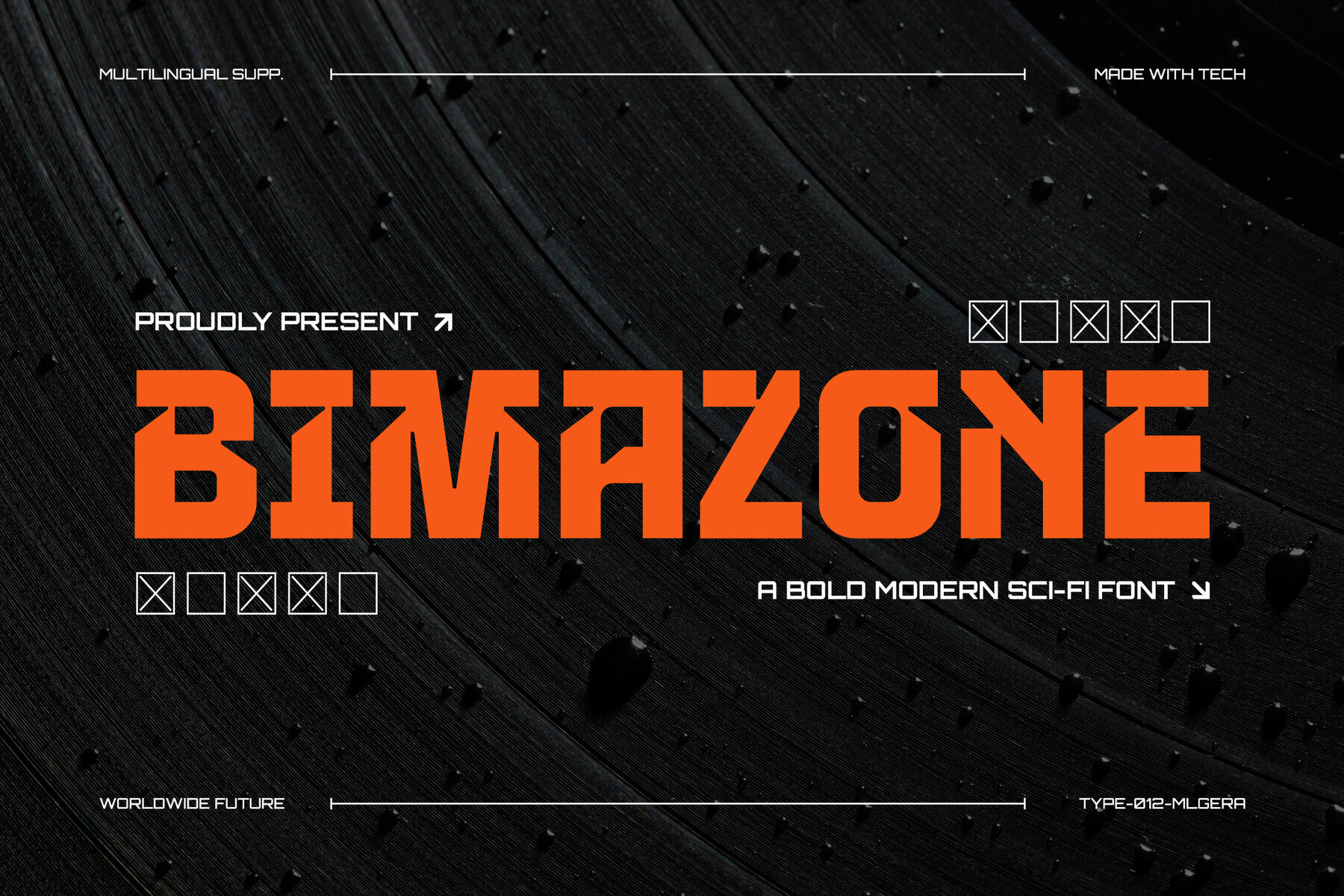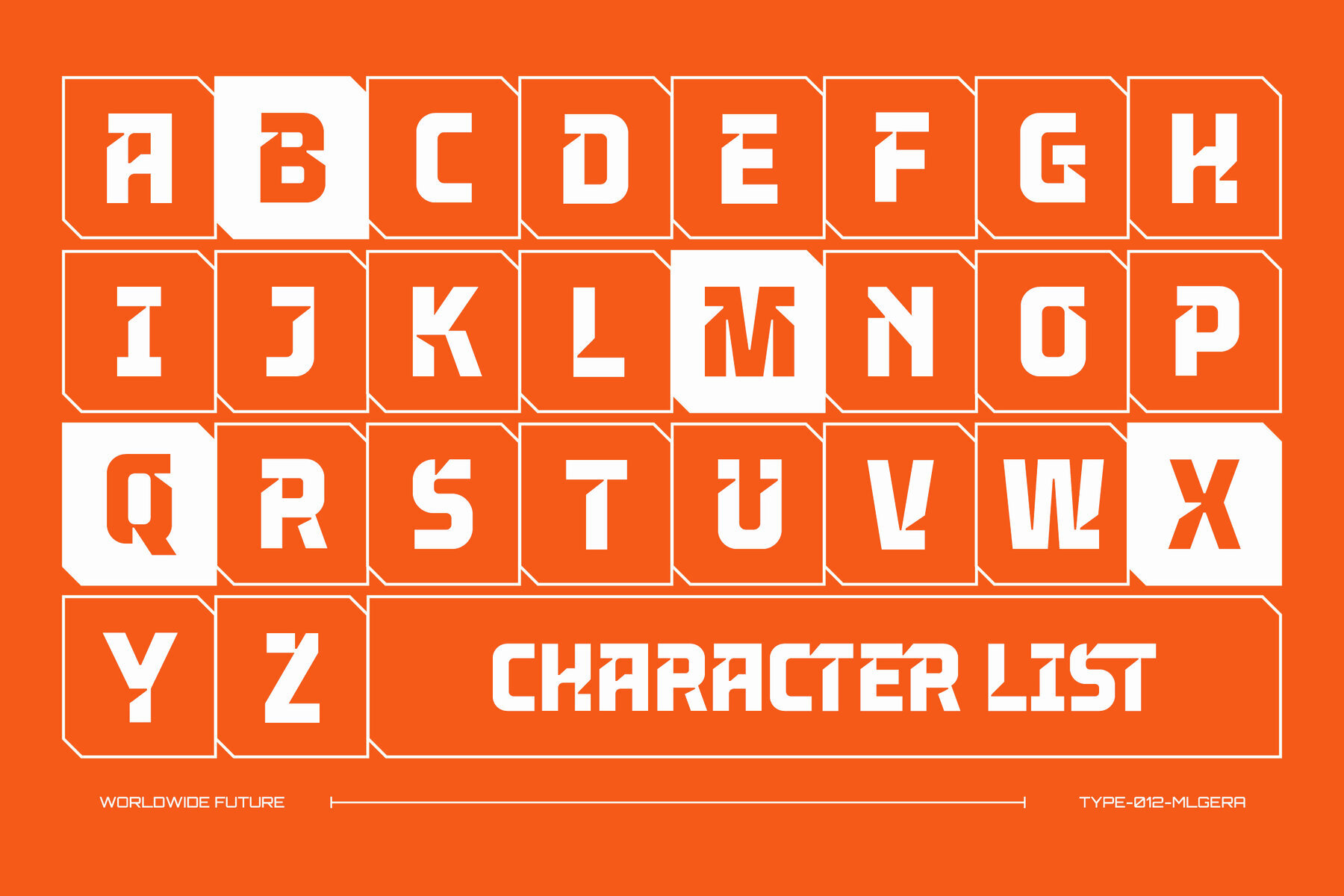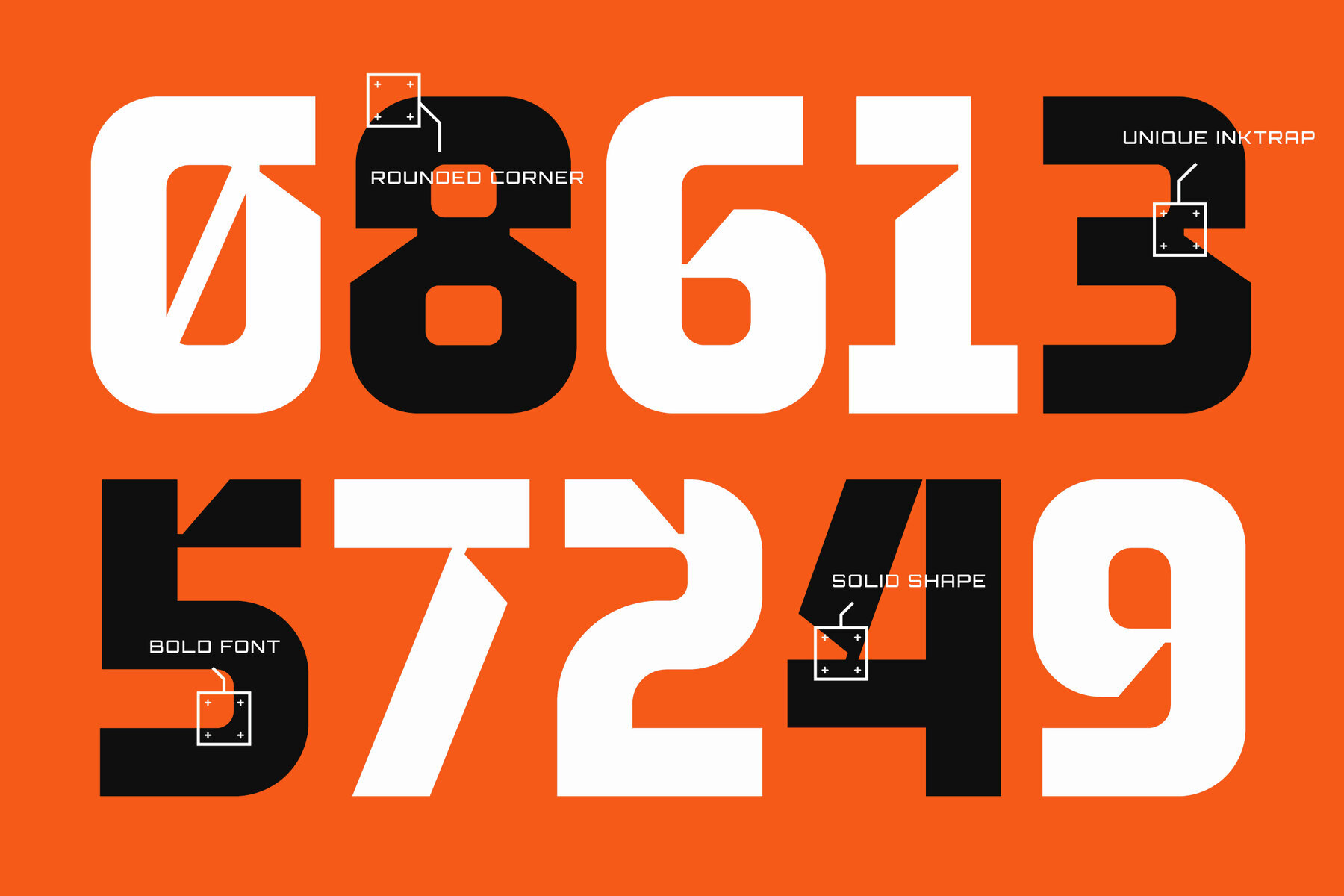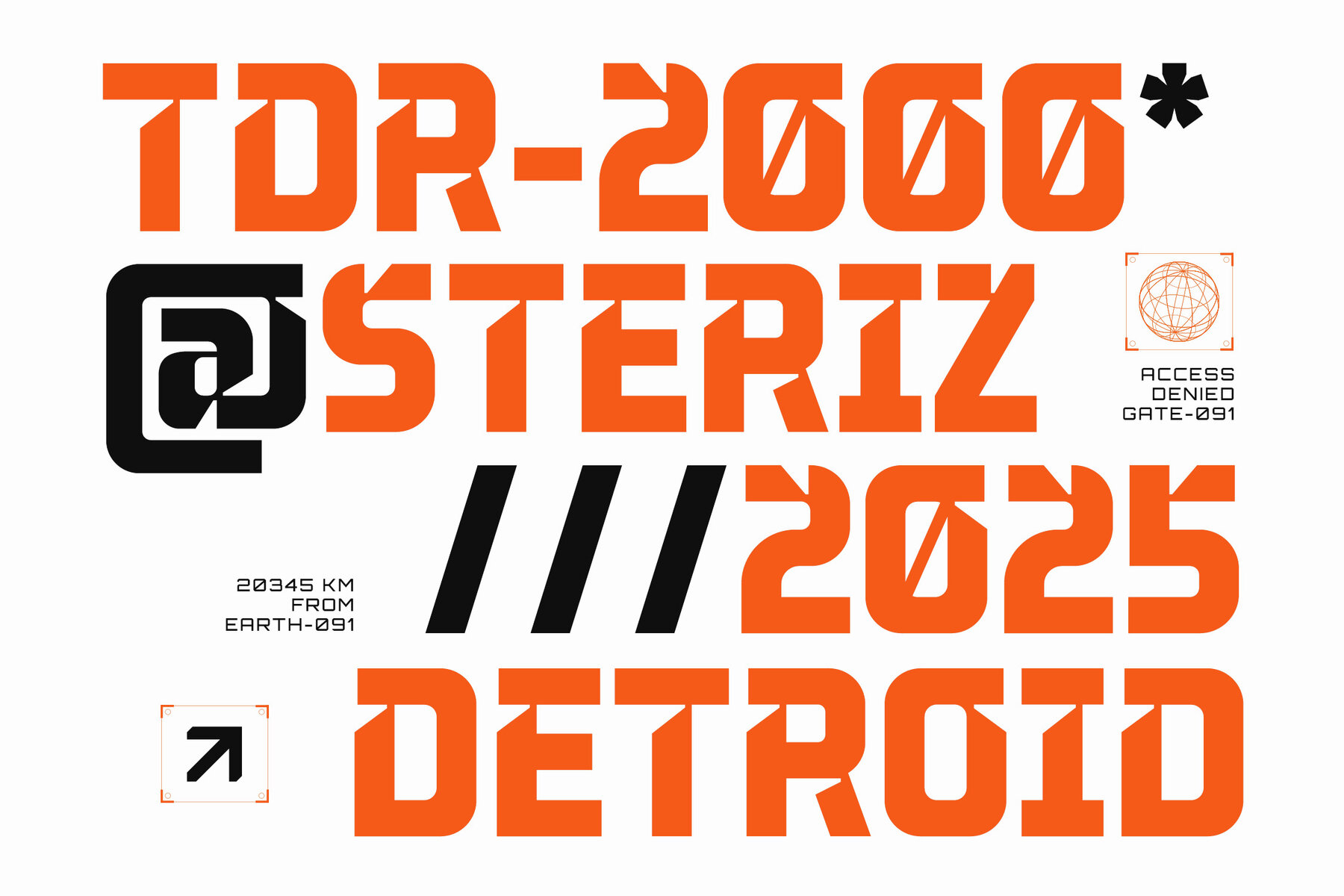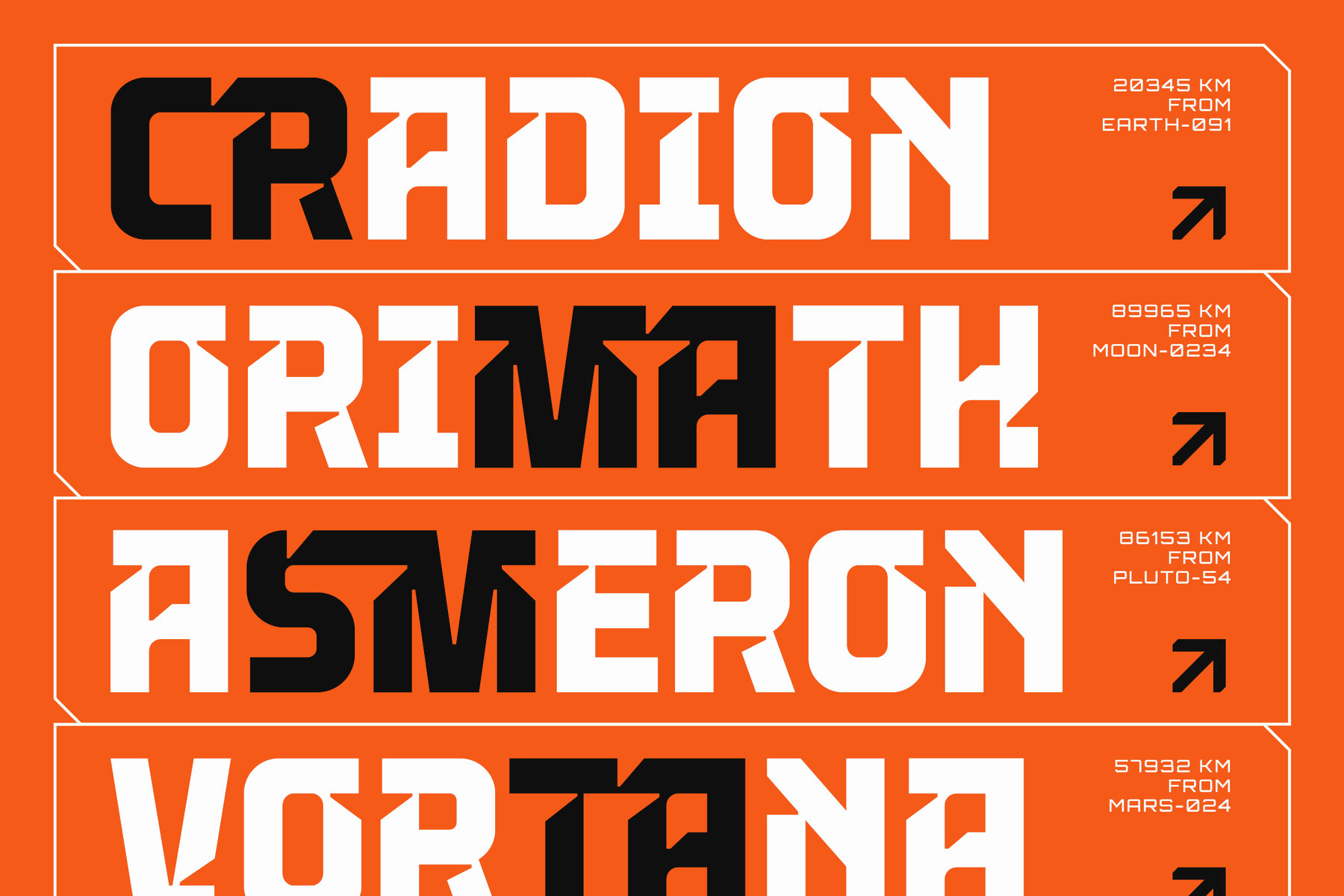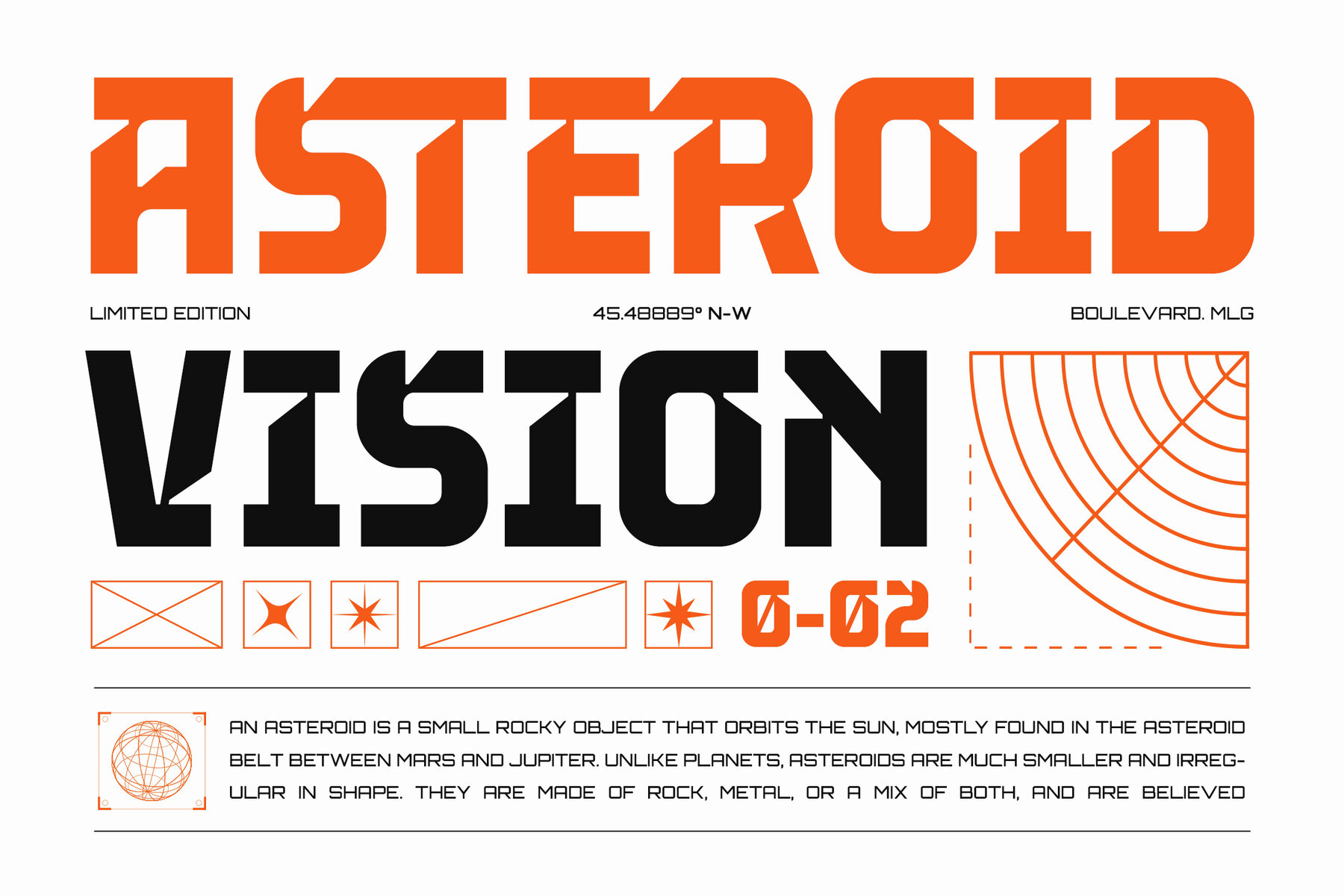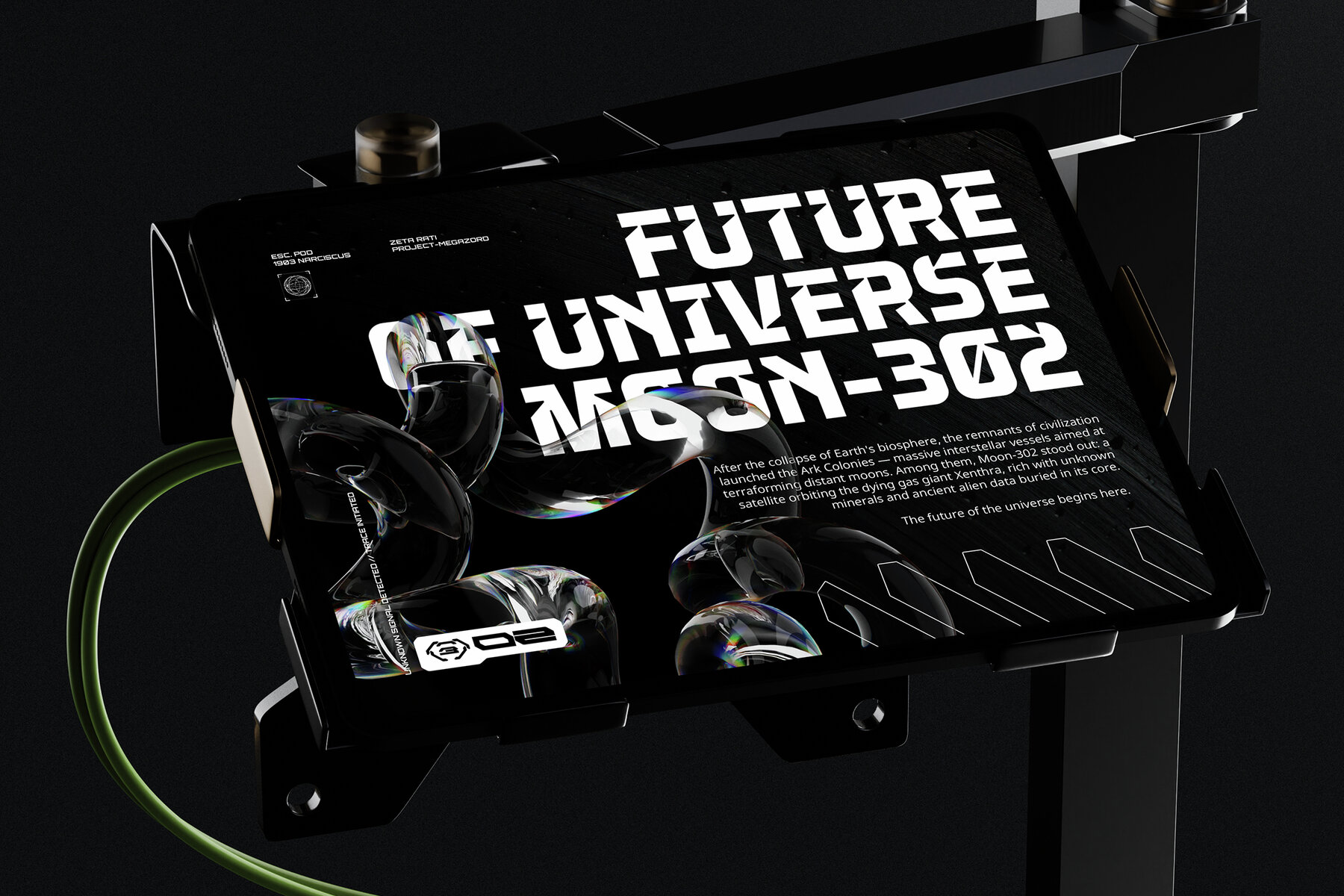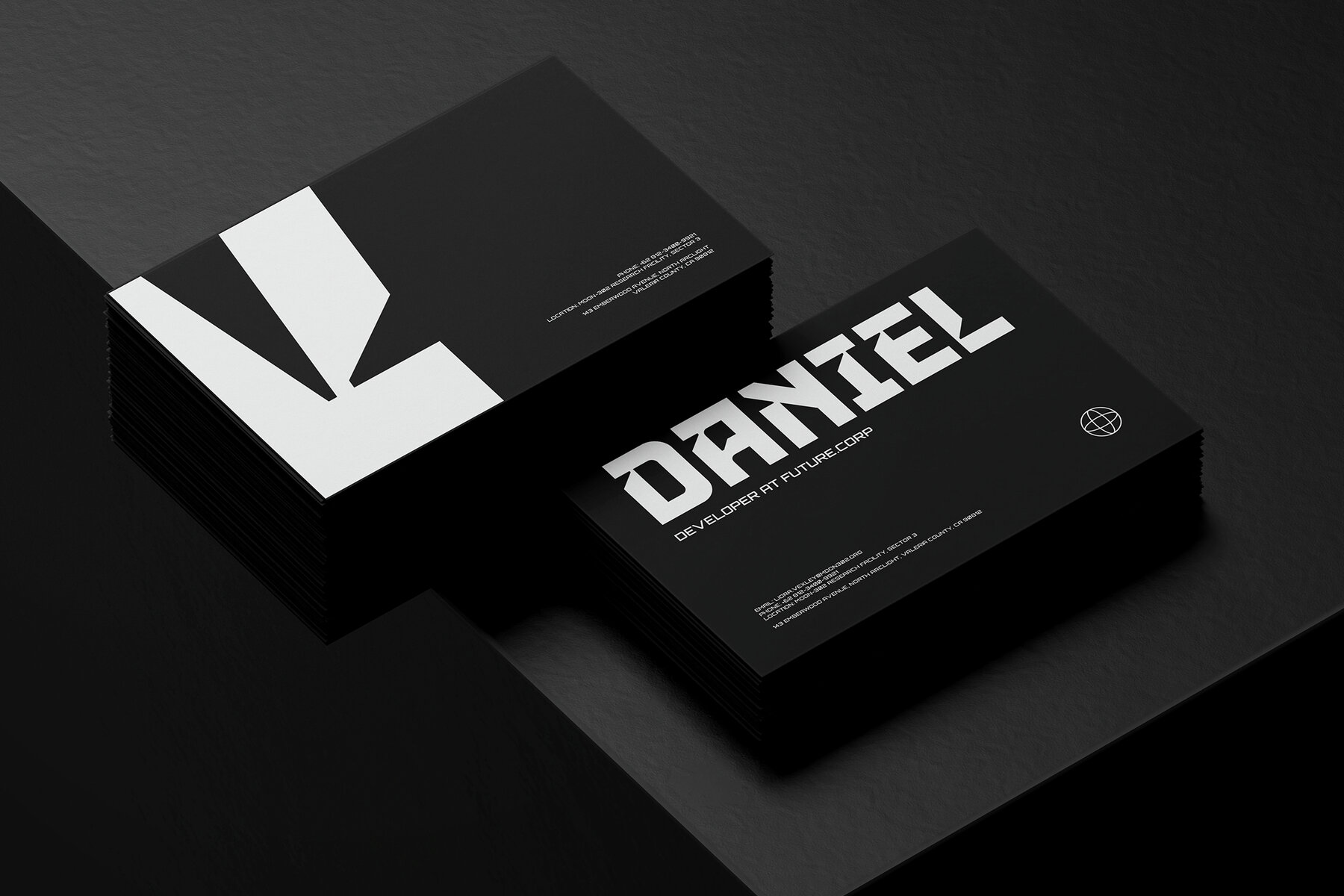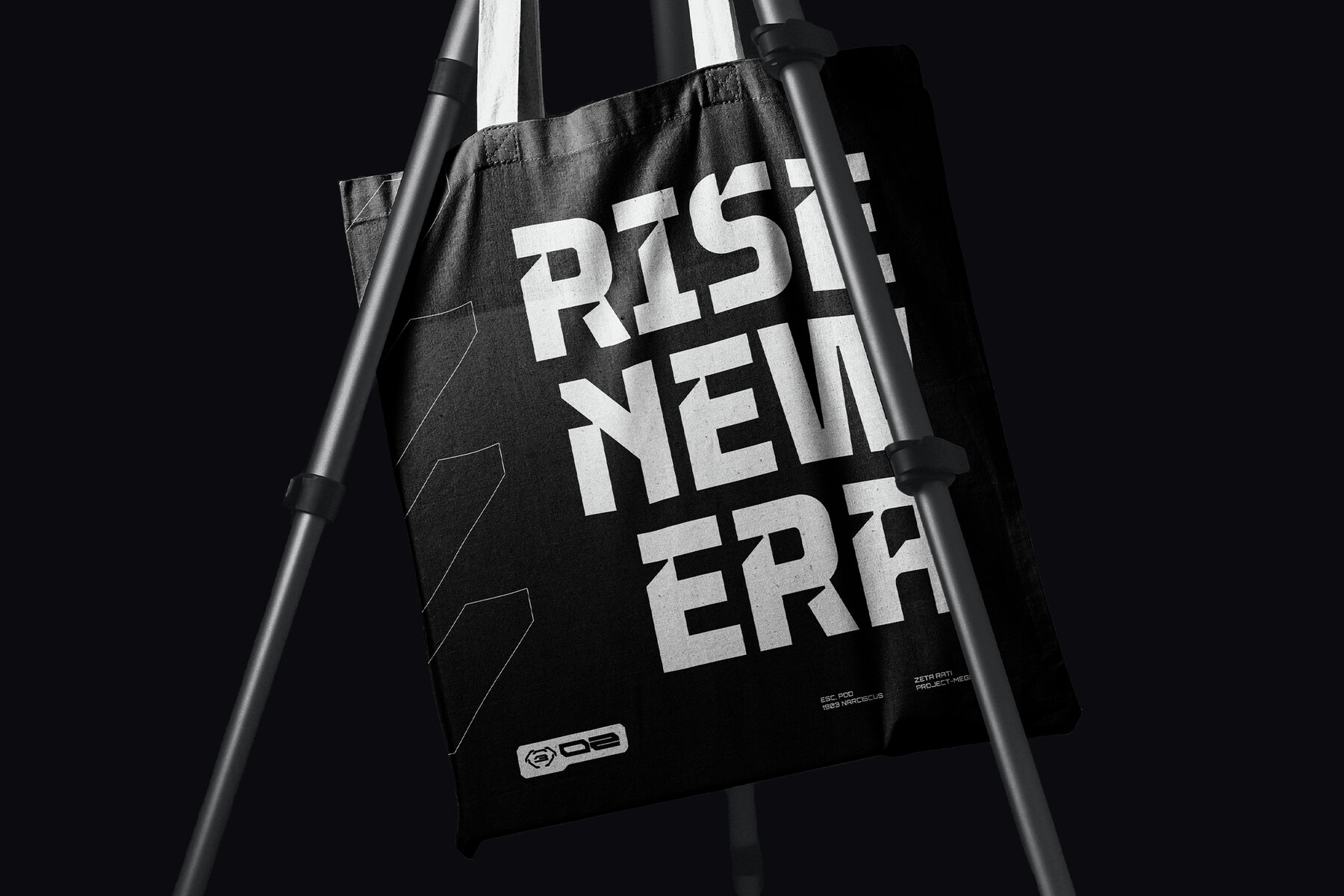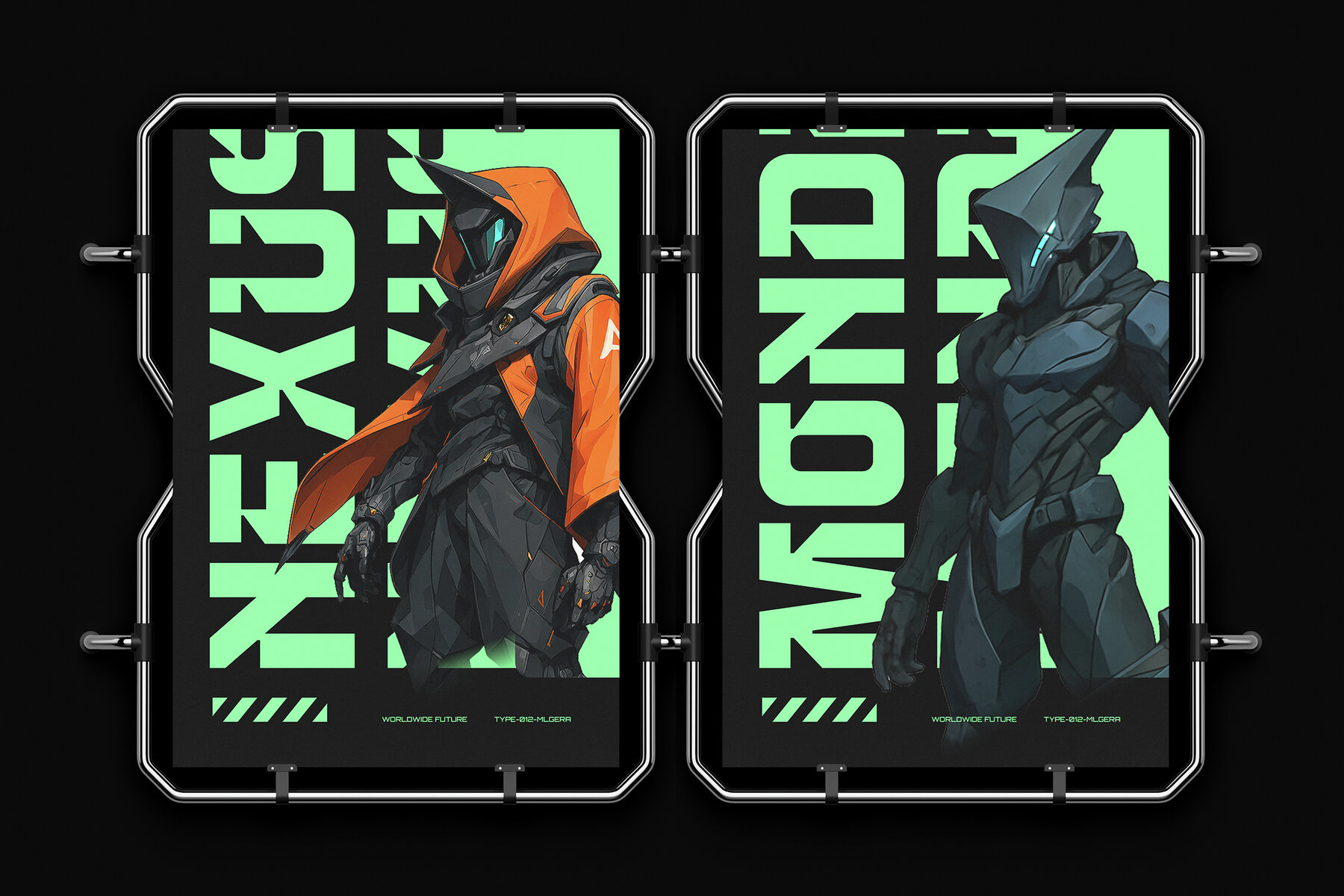
Bimazone Font
Bimazone Regular
Bimazone is an impactful and futuristic geometric display font that stands out with its bold presence. Designed for modern sci-fi aesthetics, this font features a combination of unique ink traps and subtly rounded corners, creating a distinctive and powerful look. Its versatile nature makes it ideal for a variety of creative projects that demand a strong visual identity. Elevate your project with the forward-thinking and bold aesthetic of Bimazone. Make a futuristic statement in your designs today.Bimazone: Bold Modern Sci-Fi Display Font